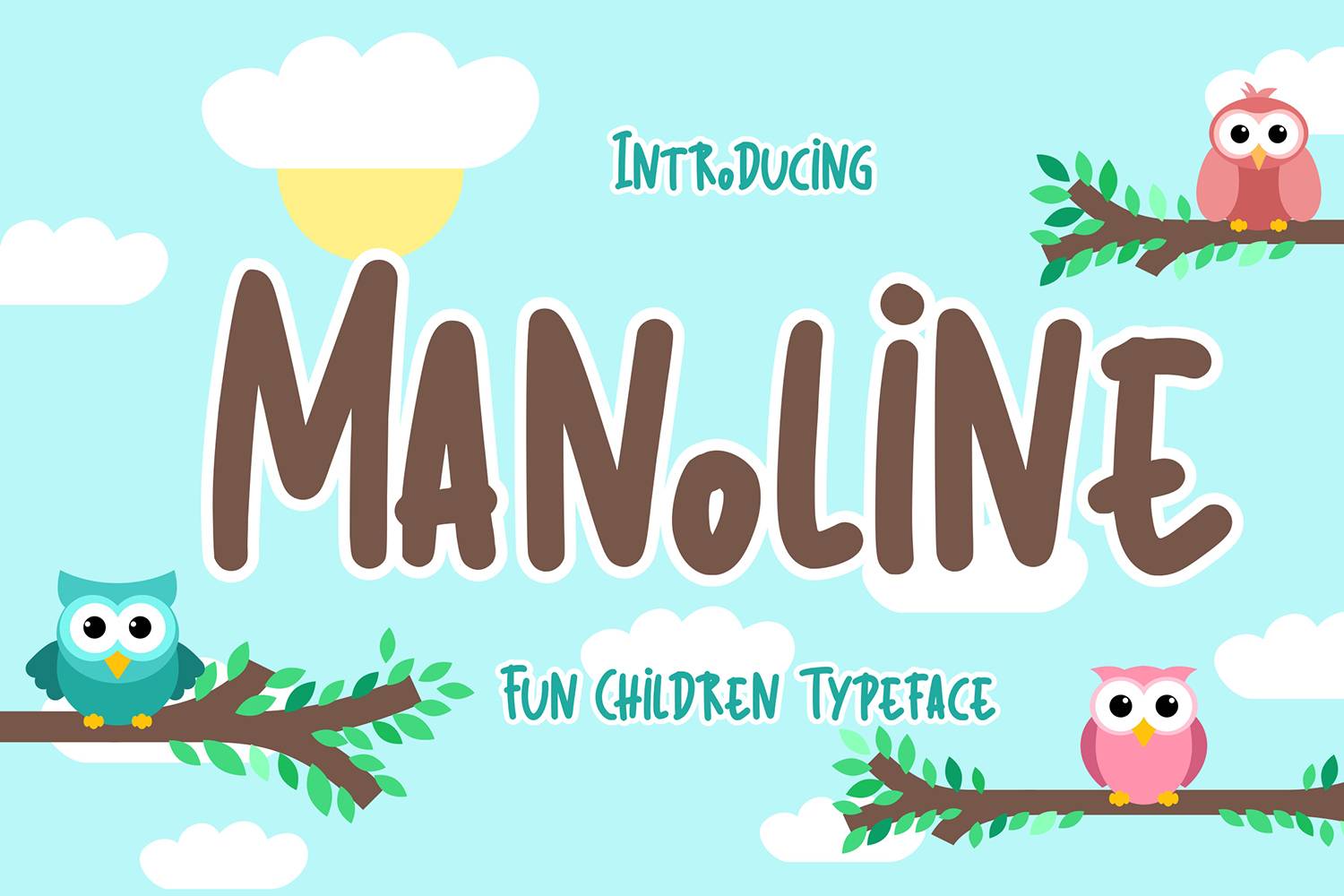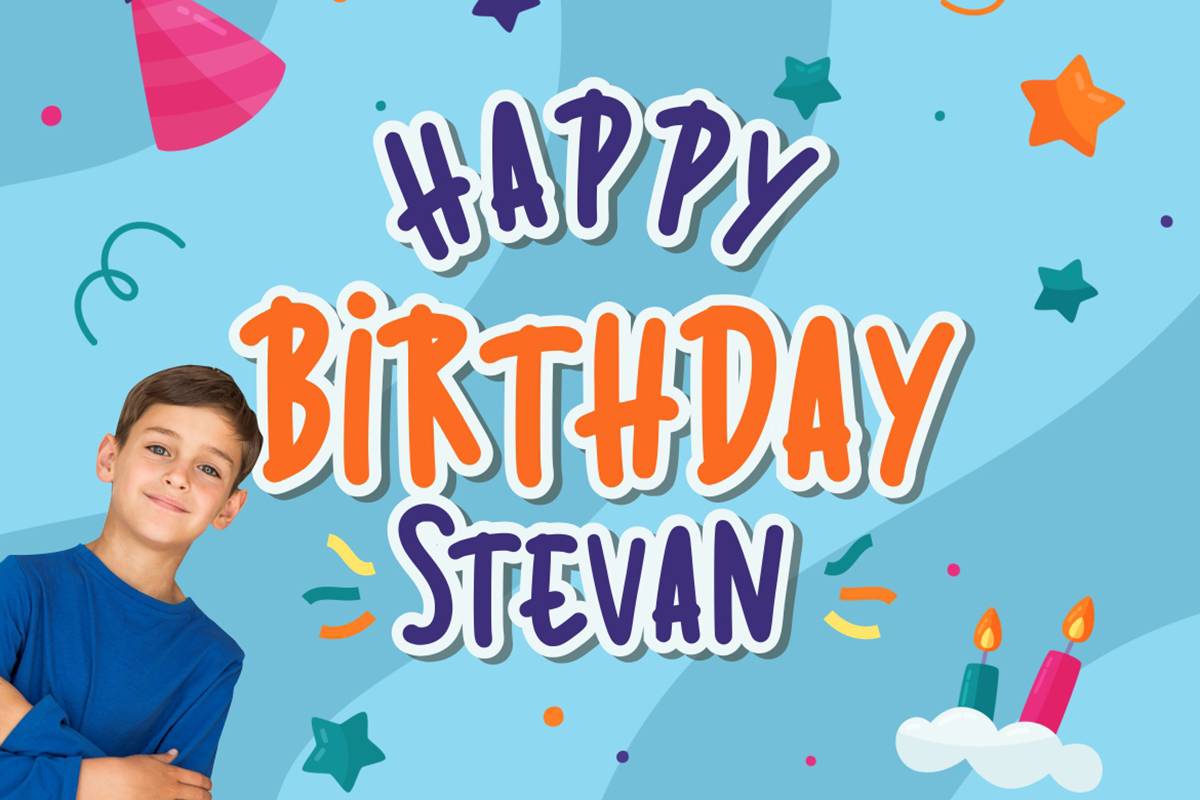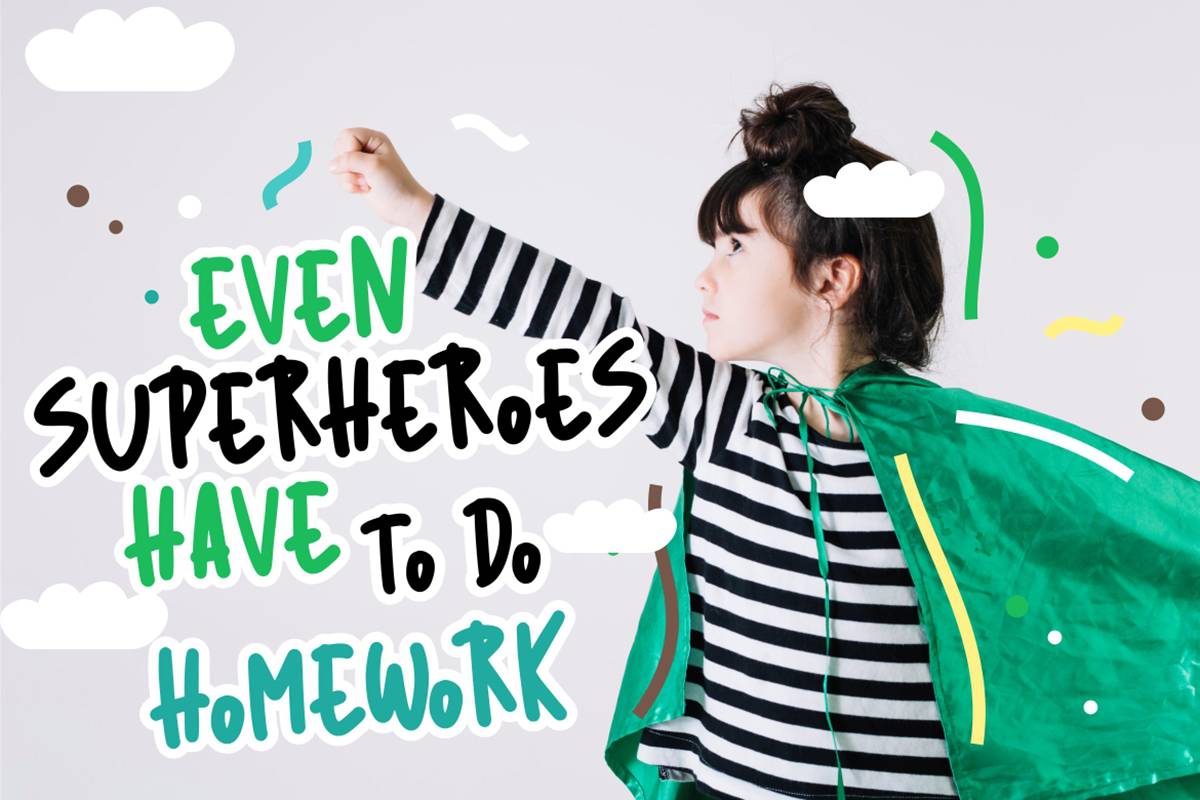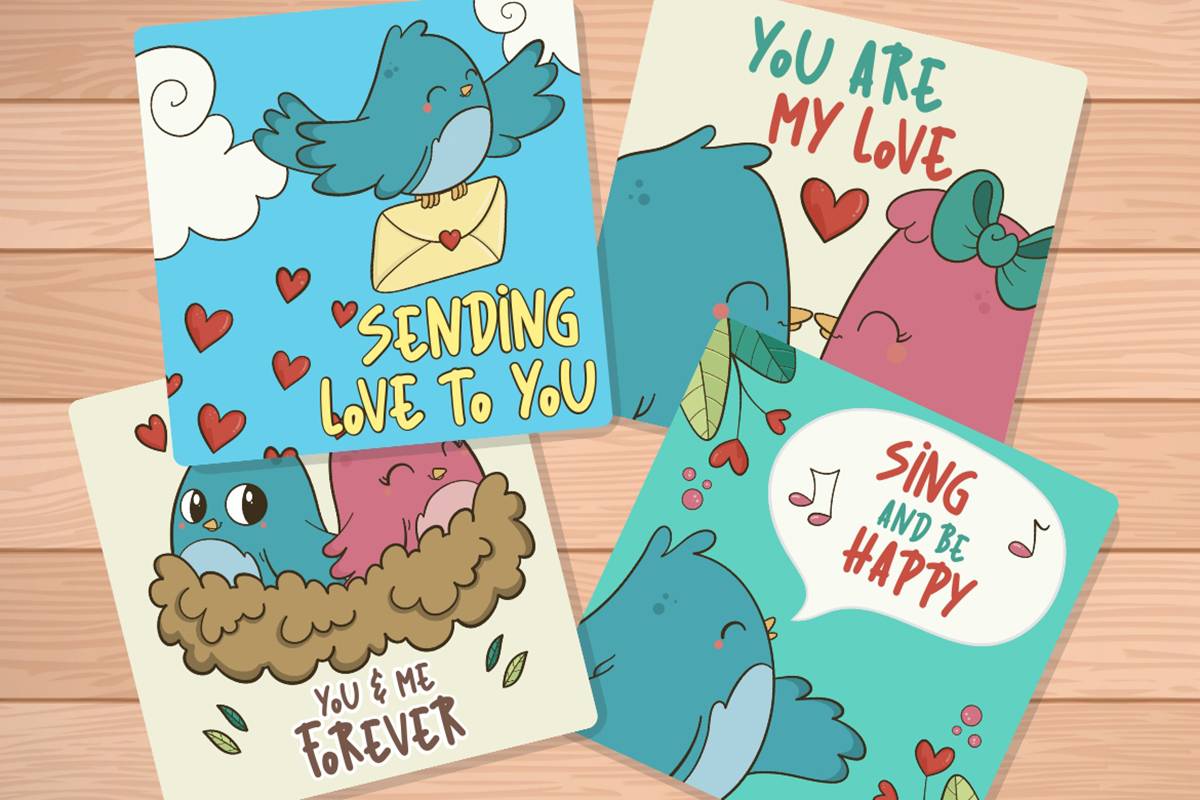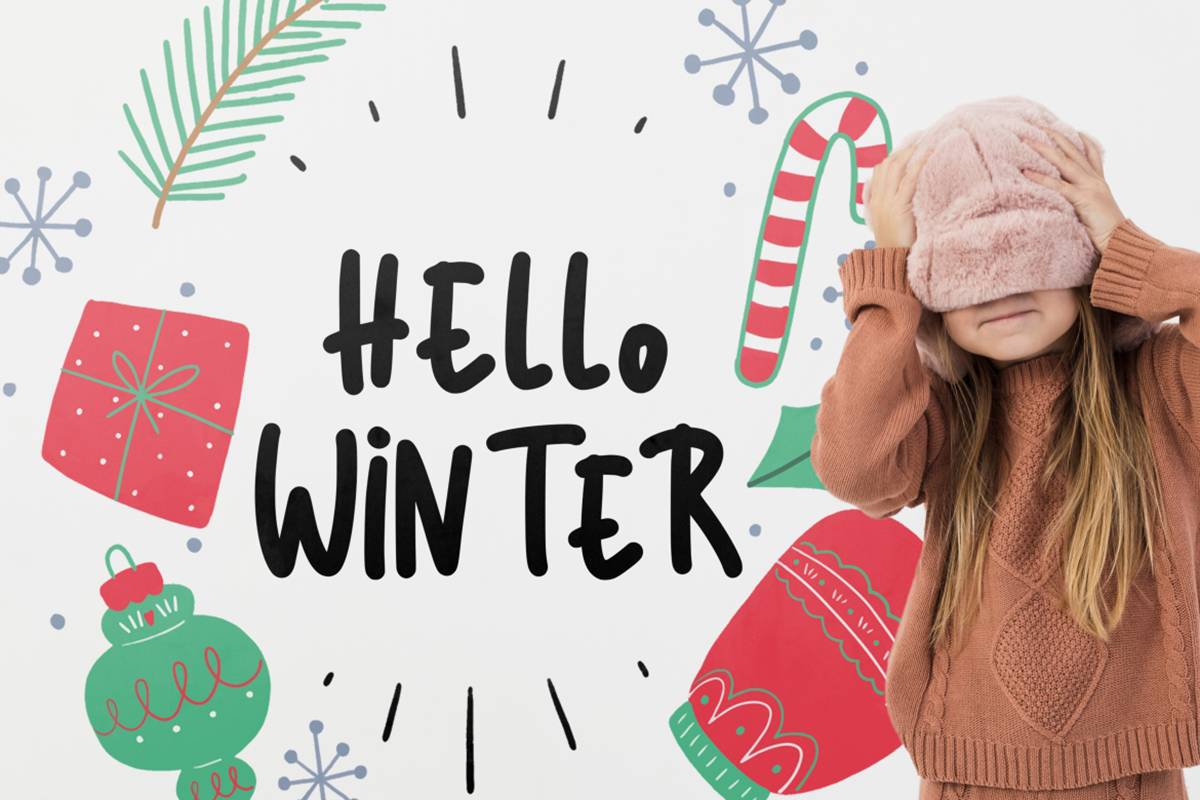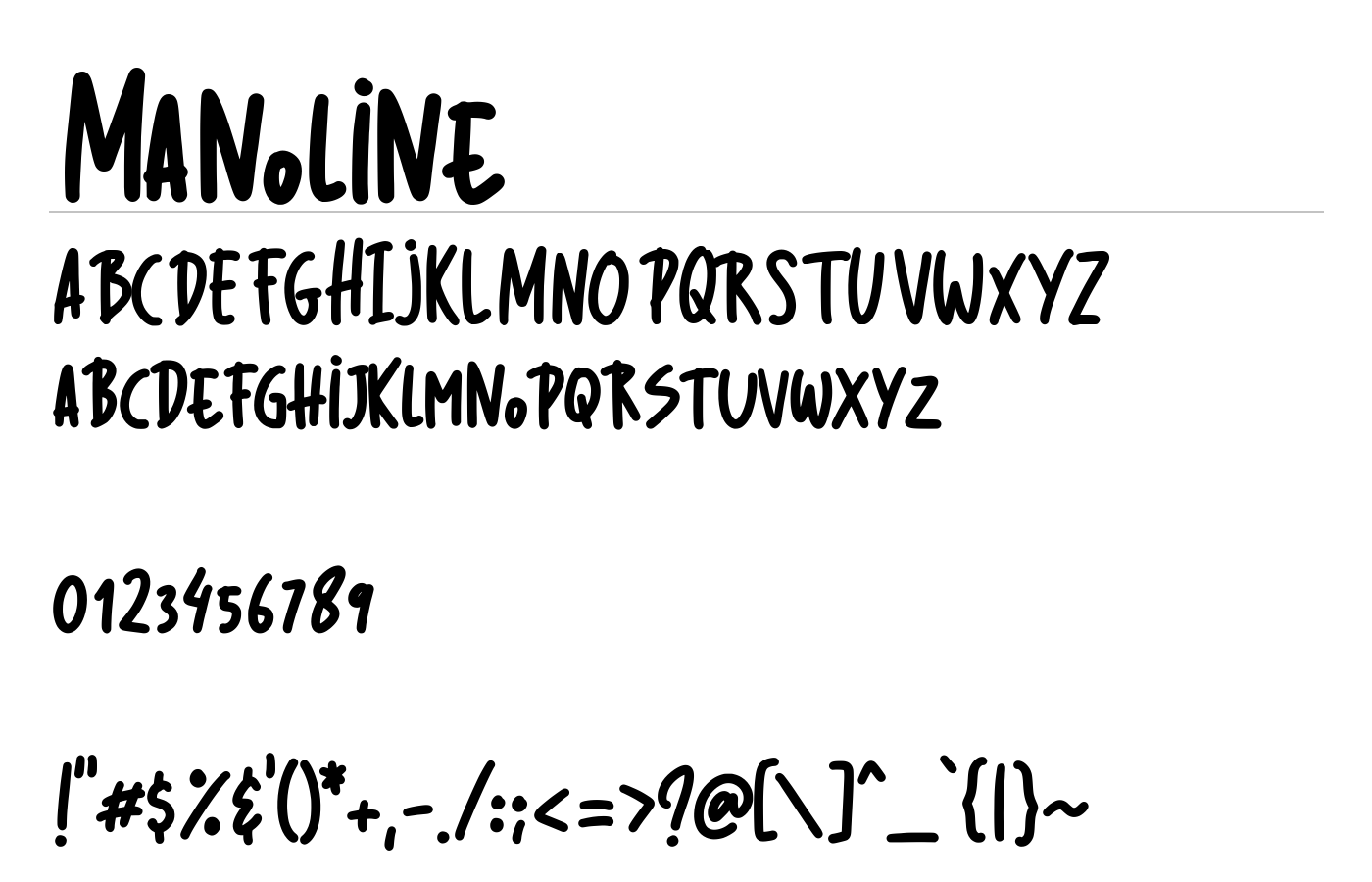
Manoline is a playful, hand-drawn sans serif font with a casual and friendly vibe. Its irregular, tall letterforms and smooth strokes give it a lively, approachable feel, making it ideal for creative projects, informal branding, and fun headlines. This font works well where a personal, human touch is needed to add character and warmth.
Manoline Font
About Manoline Font